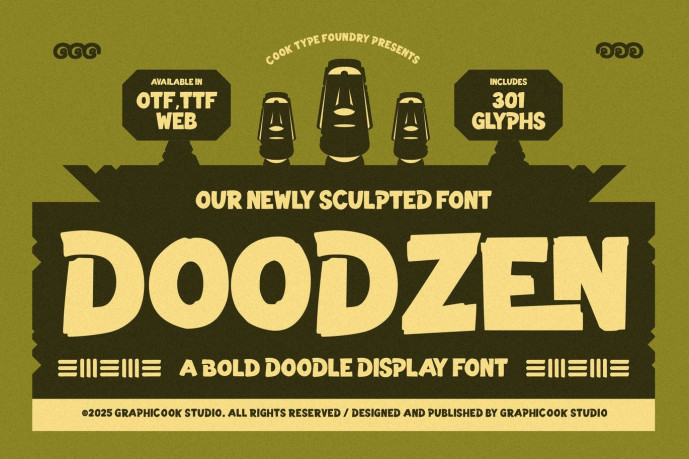
Doodzen Font
Designer: graphicook
Doodzen Font is a bold, hand-sculpted display typeface inspired by traditional sculptures and forms. Its organic, irregular shapes create a raw, tactile look, perfect for tribal, folk, cultural, or thematic designs that need an authentic, handcrafted feel.